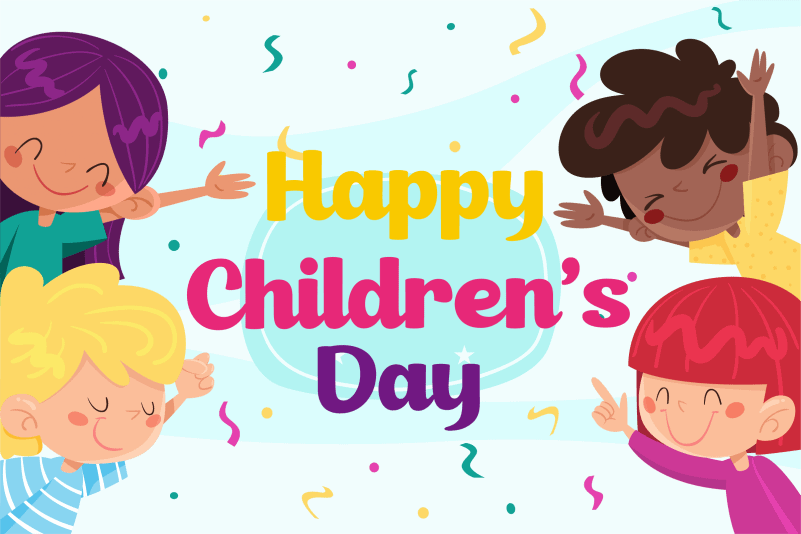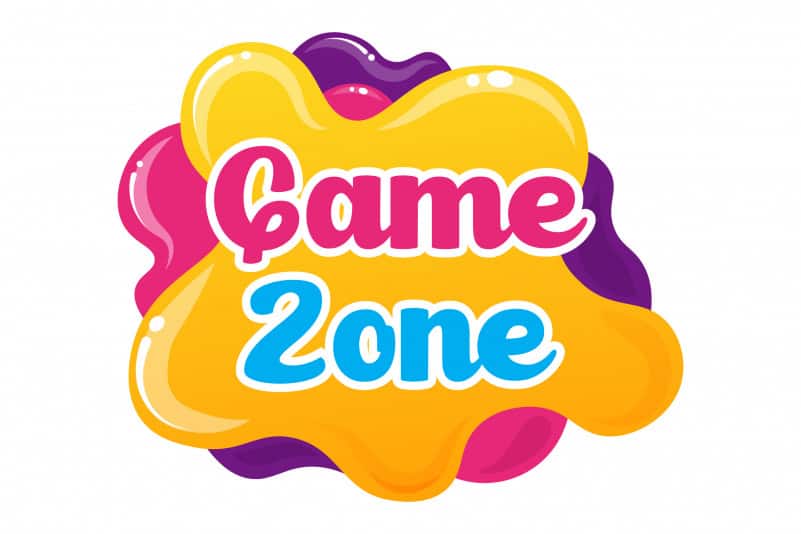
Cheerful Dynamite Bold Script Font
Cheerful Dynamite Bold Script Font is a playful script typeface, carefully handcrafted to become a true favorite. Its casual charm makes it appear wonderfully down-to-earth, readable and so versatile.